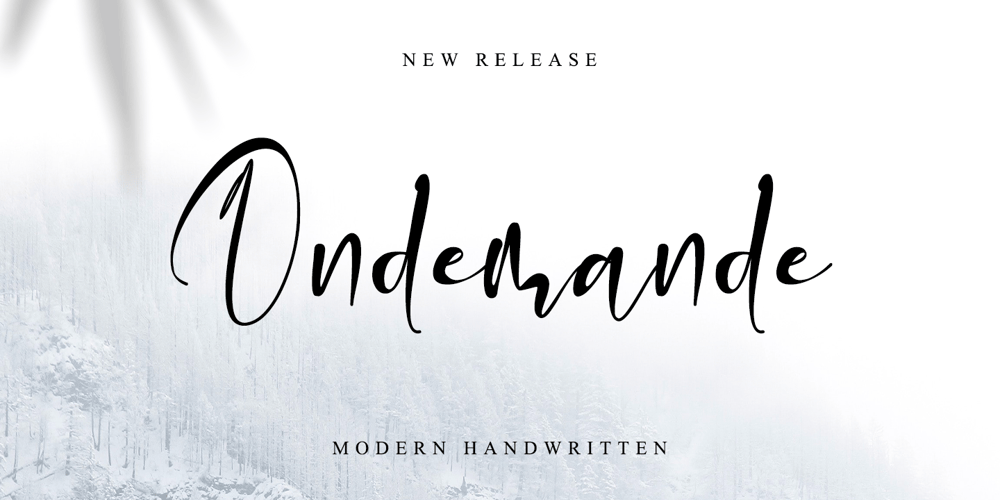
Ondemande
Ondemande font
Ondemande Font Family was designed by Stefani Tri Rosa Setiati Christiana and published by Stefani Letter. Ondemande contains 1 styles and family package options. Ondemande feels equally charming and elegant. It looks stunning on wedding invitations, thank you cards, quotes, greeting cards, logos, business cards, and every other design which needs a handwritten touch. This font is PUA encoded which means you can access all of the glyphs.